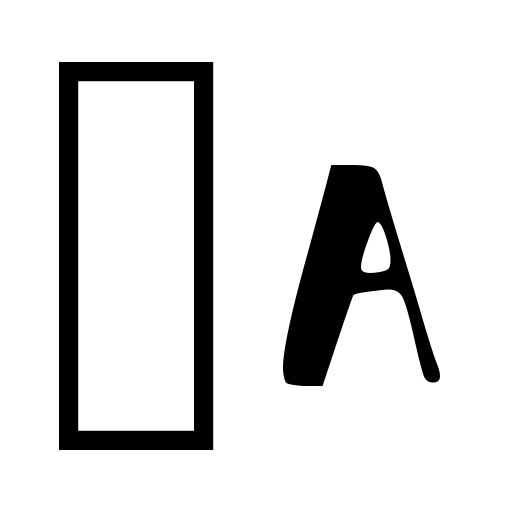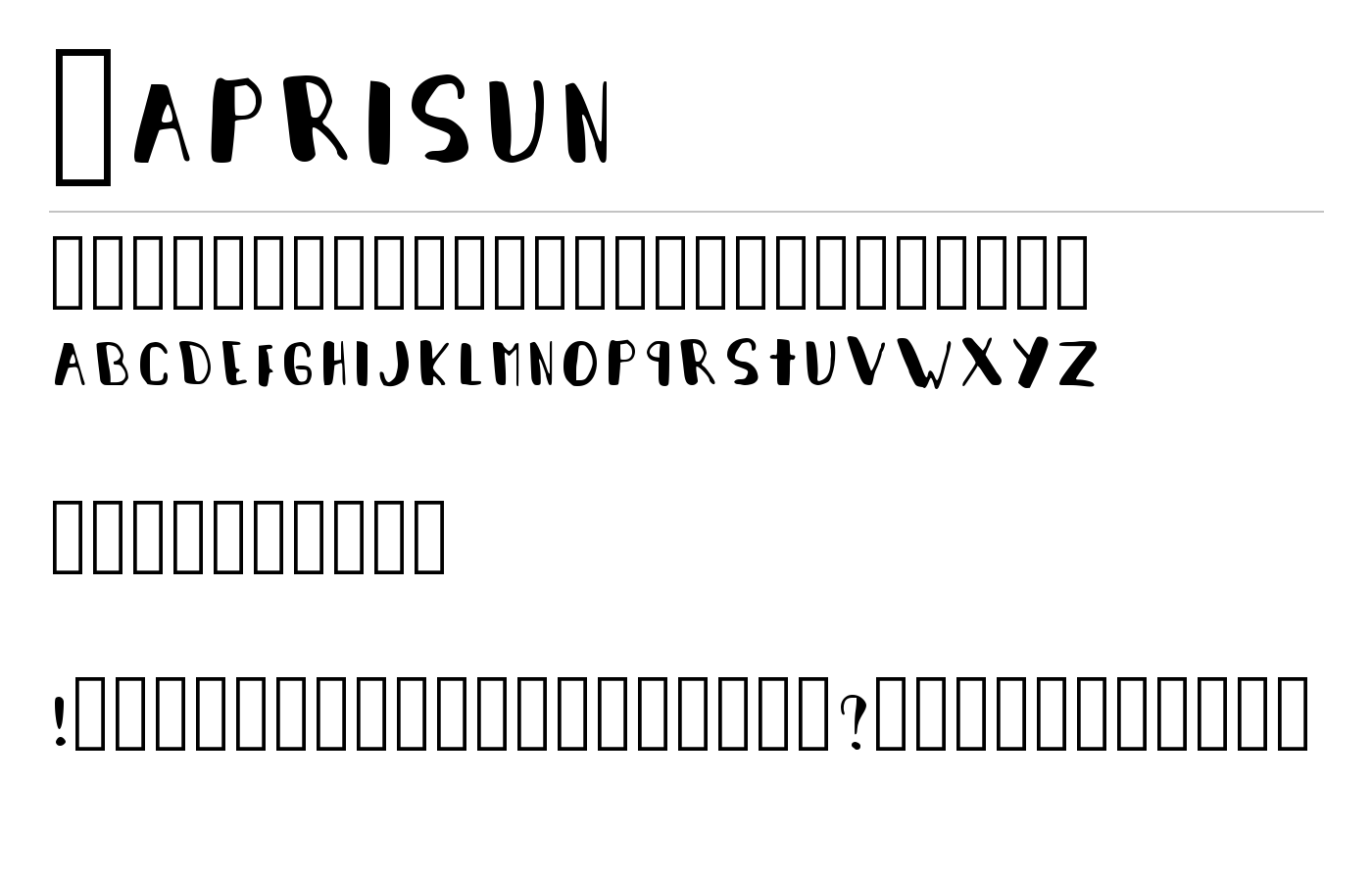
Caprisun is a playful and quirky sans serif font characterized by irregular, hand-drawn letterforms that give it a casual, fun feel. Its bold weight and varying stroke widths create a lively and friendly personality, making it ideal for projects needing a youthful and energetic touch, such as kid-friendly branding, informal posters, and creative packaging. The irregular shapes and organic style make it stand out in headlines and display uses, where a unique and approachable vibe is desired.
Caprisun Font
About Caprisun Font